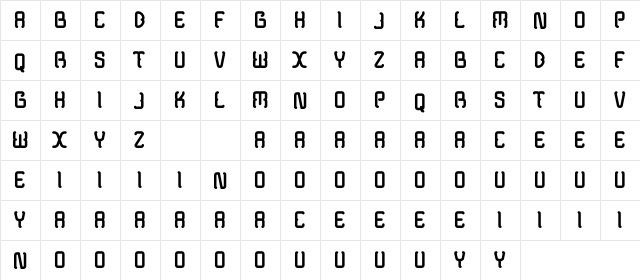
Modern Java Demo Regular
| Foundry | Satriya Anggun |
| Designer | Satriya Anggun |
Design Context for Modern Java Demo Typeface
Modern Java Demo takes a measured approach to typography — its balanced proportions and neutral character make it a reliable workhorse for both digital and print work.